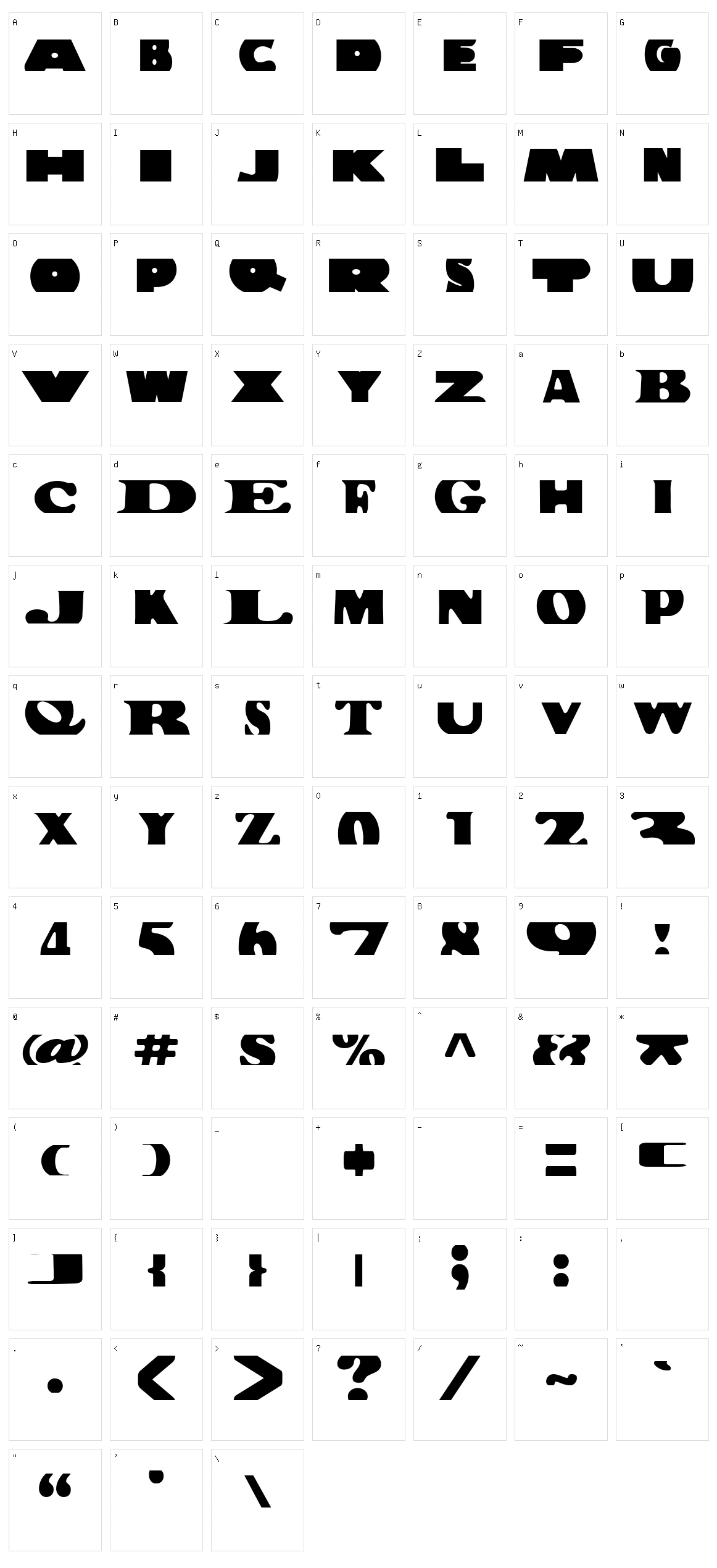
The free font Building Bloc is carefully designed by Yager Creative Solutions, showcasing a thoughtful balance of creativity and usability and falls under the Distorted font style. When you download the ZIP file, it contains only 15.8 KB of font files, making it lightweight and quick to download. Please review the license details below to understand permitted usage and distribution rights. If license information is not available, we recommend using this font for personal projects only or contacting the author directly for commercial usage permissions.